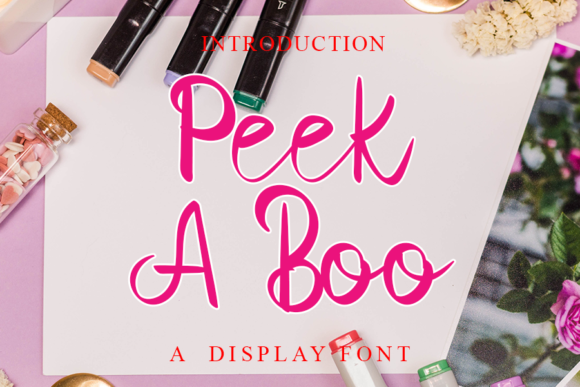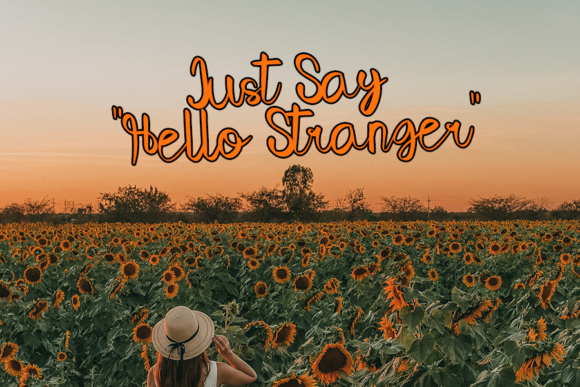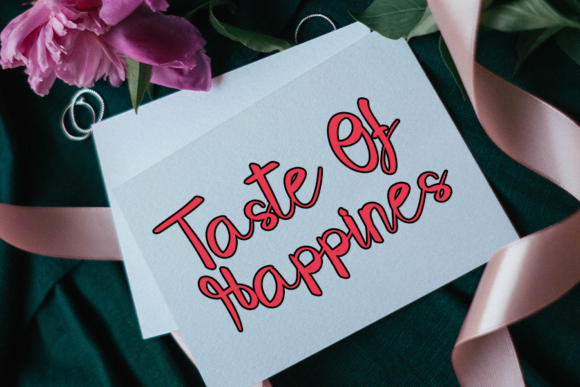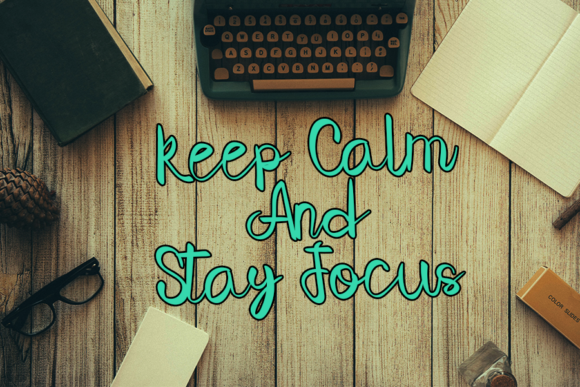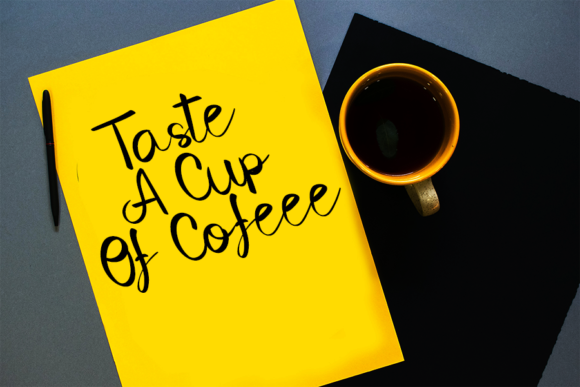
Peek a Boo Font
About Peek a Boo Font
Peek a Boo is a lovely and delicate script font that exudes charm and class. This font was particularly crafted for those who need a beautiful and refreshing look to their designs.